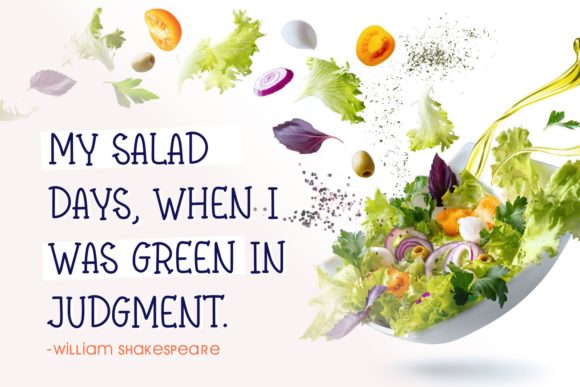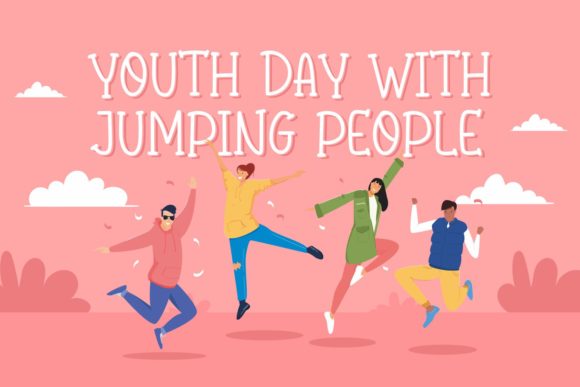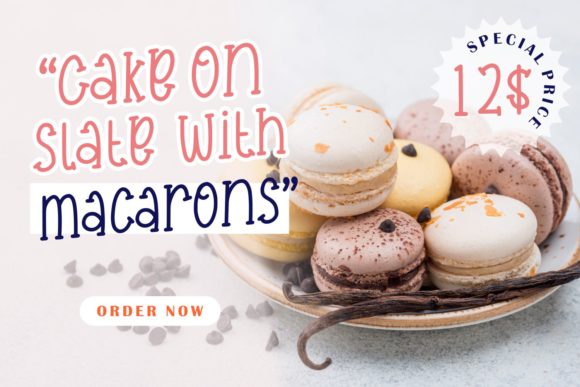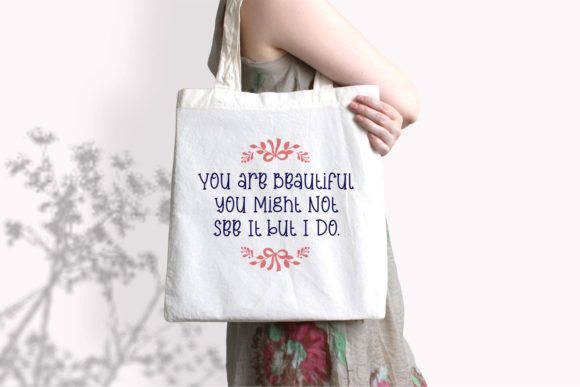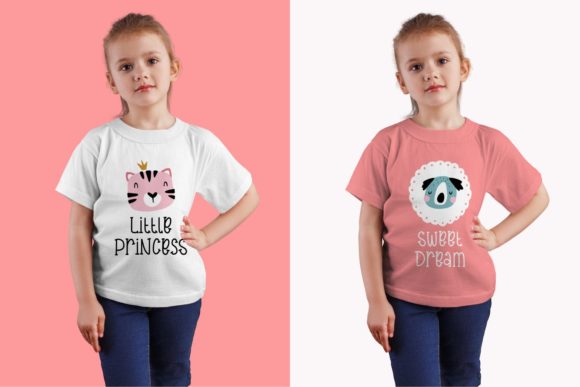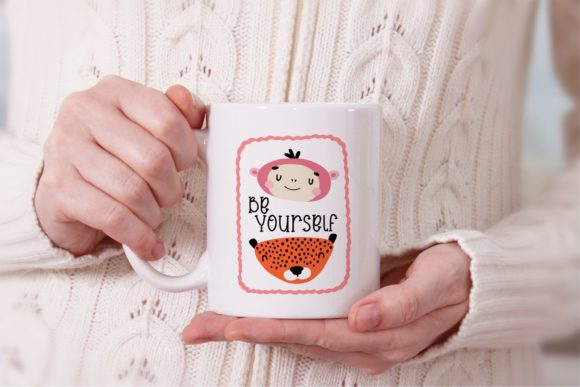
Introduction to Quesited Font
Quesited is a cute and quirky display font.
Relaxed and unique, this font will instantly add a joyful vibe to any design that you wish to develop .